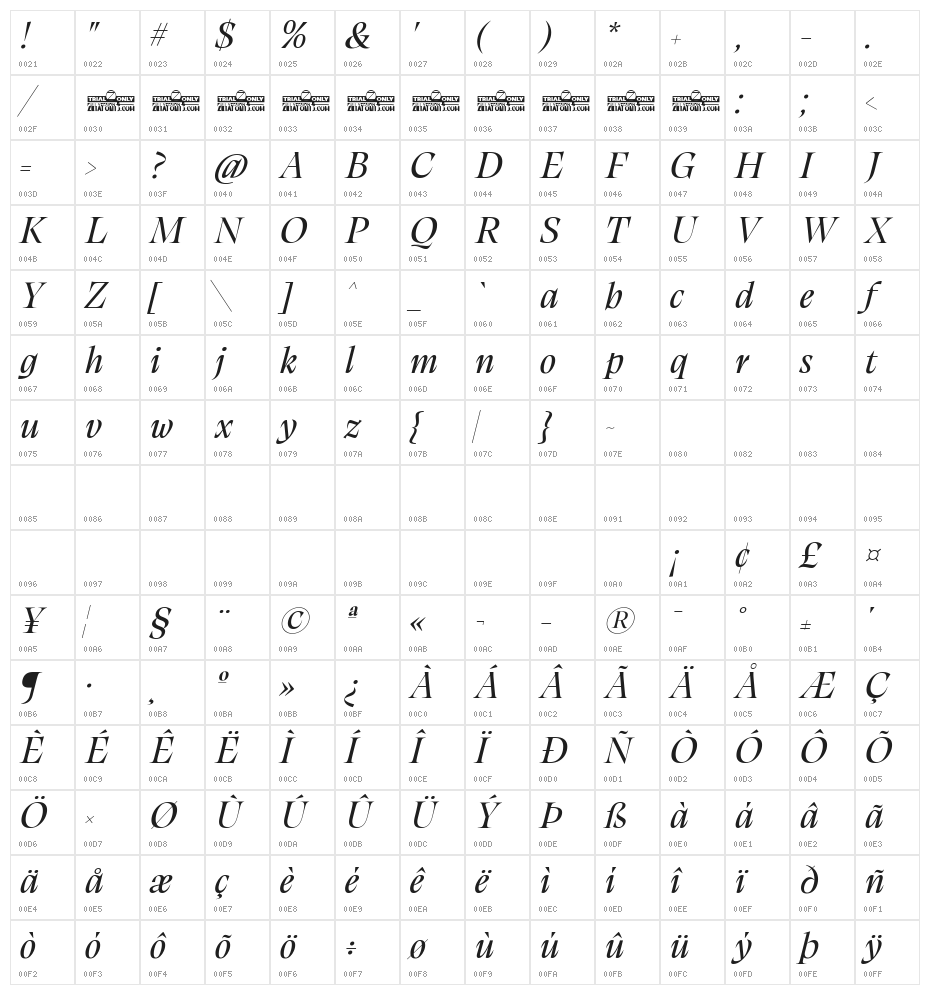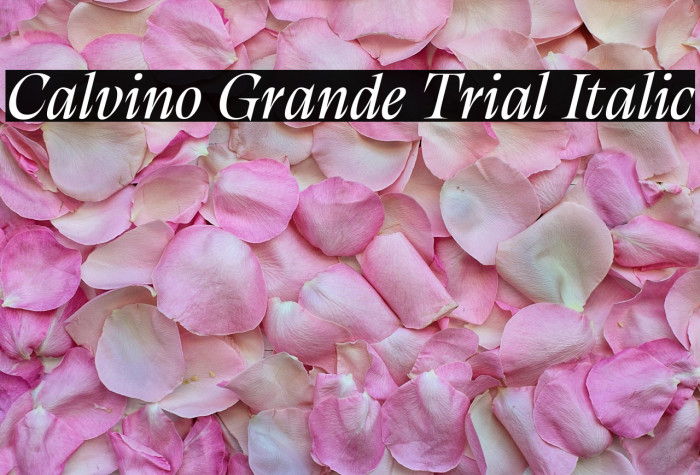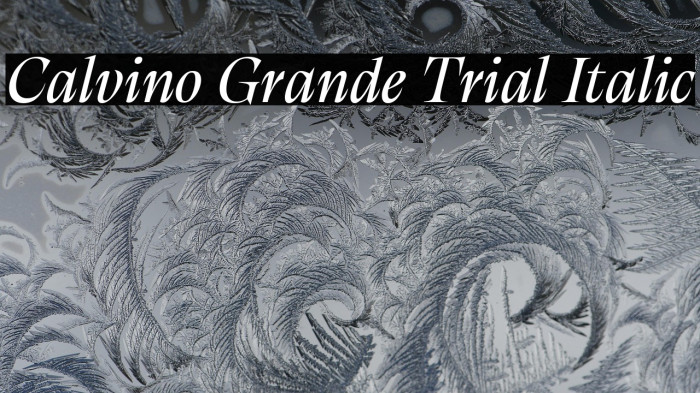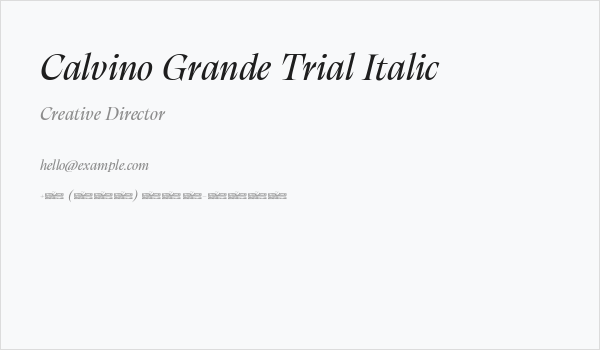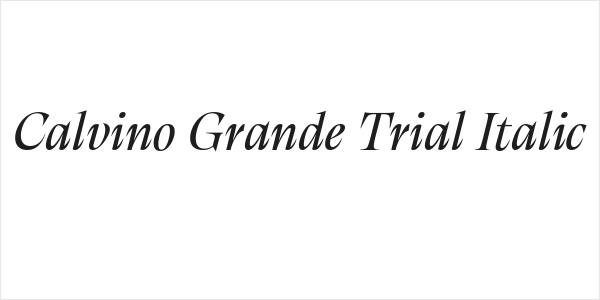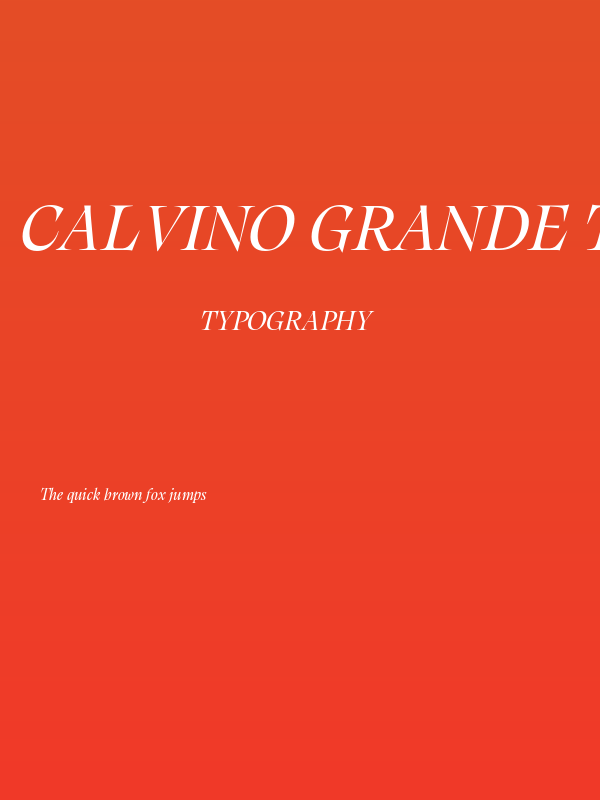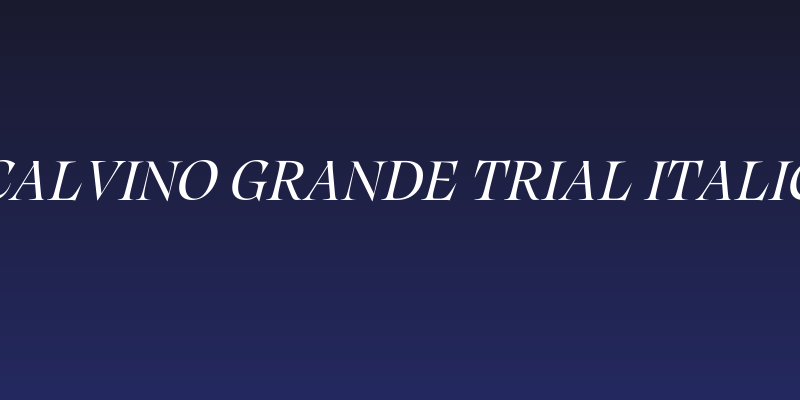
Calvino Grande Trial Italic Font
Calvino Grande Trial Italic Description
This font features an elegant and sophisticated italic style, characterized by its smooth and flowing letterforms. The uppercase letters are tall and slightly condensed, giving a sense of formality and grace. The lowercase letters maintain a consistent slant, enhancing the fluidity and continuity of the text. The numerals and special characters are designed to complement the overall aesthetic, with a refined and polished appearance. The font's contrast in stroke thickness adds to its readability and visual appeal, making it suitable for a variety of design applications.
| Use Case | Headlines, Logos, Editorial design |
| Proposed Projects | Ideal for use in luxury branding, editorial design, wedding invitations, and high-end product packaging. |